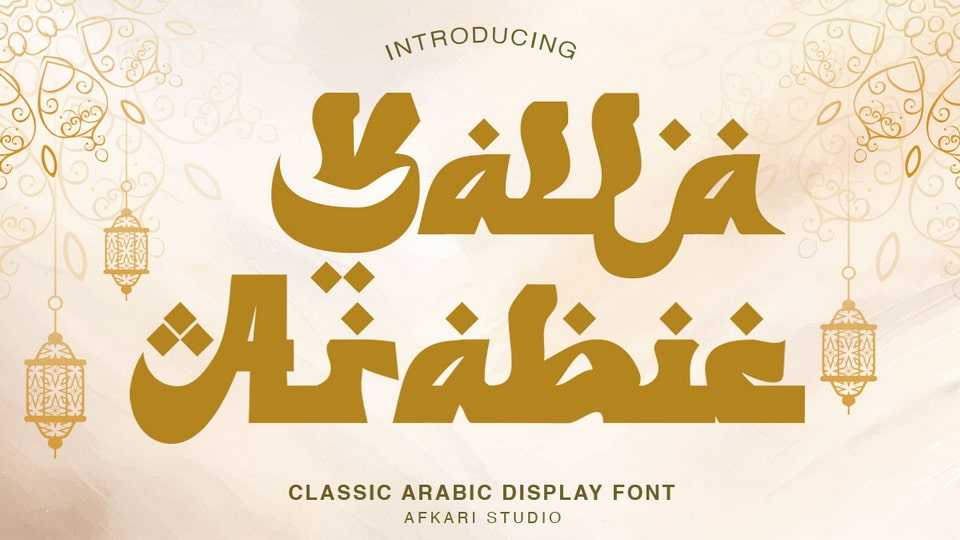
Download Yalla Arabic font, a sophisticated typeface that blends the elegance of traditional Arabic calligraphy with modern design sensibilities.
Designer: Afkari Studio